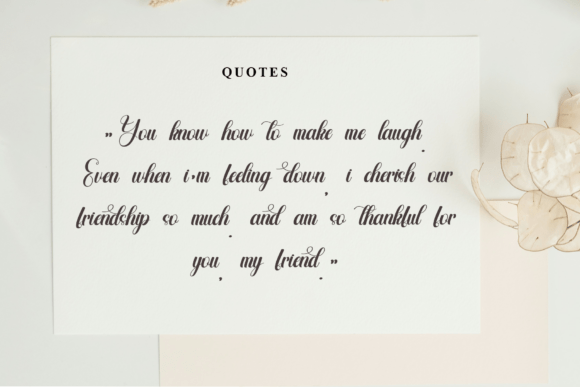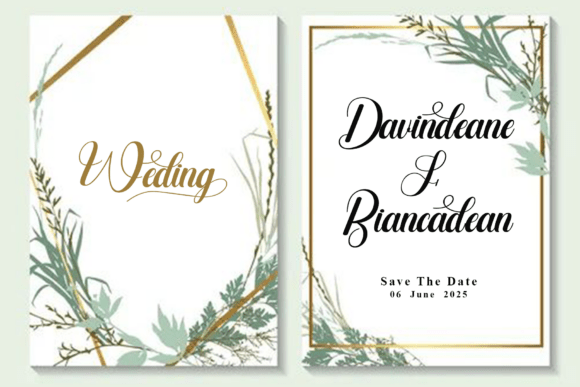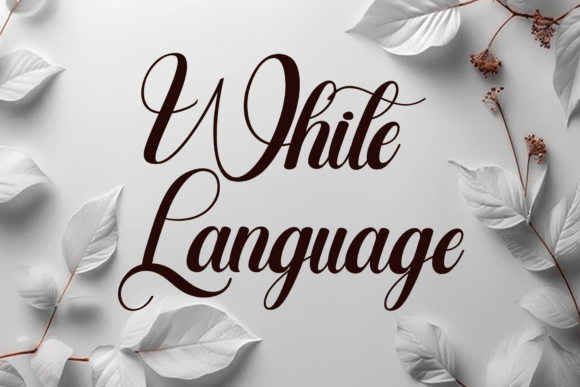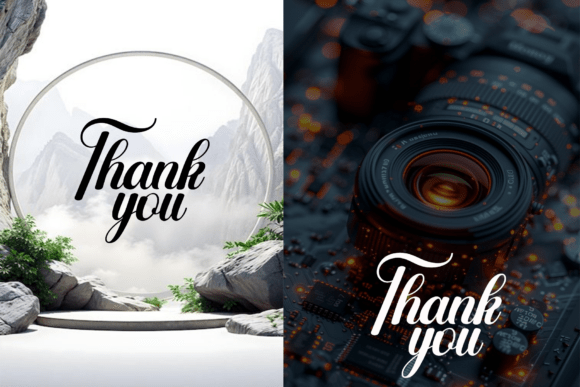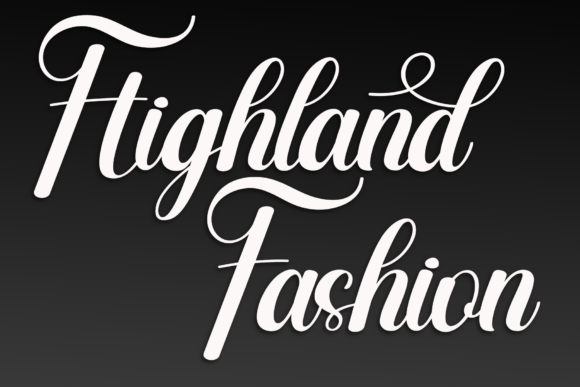
The Magic of Animals Mading Font: A Designer’s Delight
I’ll never forget the time I was working on a wedding invitation project, and my client asked for a font that was “elegant, yet playful.” I scoured the internet, tried out countless fonts, but nothing seemed quite right. That was until I stumbled upon Animals Mading Font. 💕
This beautifully flowing script font radiates charm and sophistication, making it perfect for wedding invitations, personal branding, elegant packaging, and romantic quotes. In this article, I’ll share my experience with Animals Mading Font, its features, and how to make the most of it in your designs.
- ✨ Smooth curves and a handwritten feel that adds a touch of warmth to any design
- ✅ Elegant and sophisticated, perfect for high-end branding and wedding projects
- 💫 Supports OpenType features, allowing for creative experimentation
- 🎨 Versatile and can be used for a variety of design applications, from packaging to social media graphics
While Animals Mading Font is a stunning addition to any design, there are a few things to keep in mind:
- 🤔 Limited availability of certain glyphs, which may require creative substitution
The Story Behind Animals Mading Font
Animals Mading Font was designed by a team of typographers who wanted to create a font that captured the essence of handwritten elegance. Inspired by traditional calligraphy and modern script fonts, Animals Mading Font is a unique blend of classic and contemporary design.
Q: What is Animals Mading Font?
A: Animals Mading Font is a beautifully flowing script font that radiates charm and sophistication.
Q: What can I use Animals Mading Font for?
A: Animals Mading Font is perfect for wedding invitations, personal branding, elegant packaging, and romantic quotes.
Q: Does Animals Mading Font support OpenType features?
A: Yes, Animals Mading Font supports OpenType features, allowing for creative experimentation.